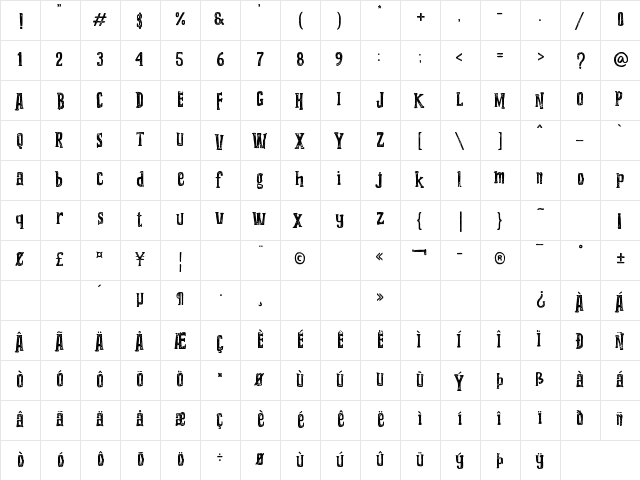
Grooving Textured Regular
Design Context for Grooving Textured Typeface
Grooving Textured embraces imperfection — its rough, textured character adds raw authenticity to designs that want to feel lived-in and unconventional.
Suited to punk-influenced zines, underground music branding, streetwear, and raw, anti-corporate design.
Pro Tip: Pair Grooving Textured with intentionally raw or lo-fi design elements. Fighting against it with overly polished surroundings will undermine its personality.